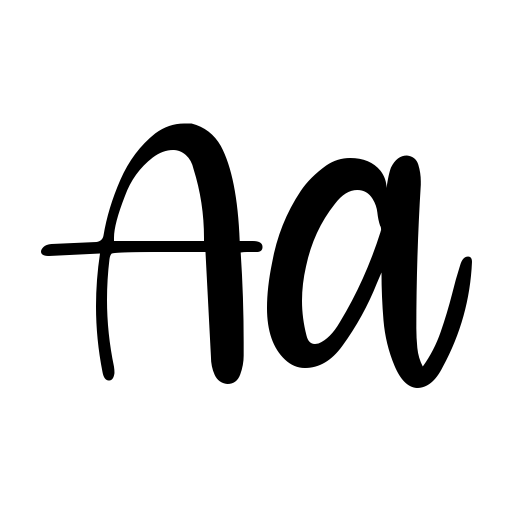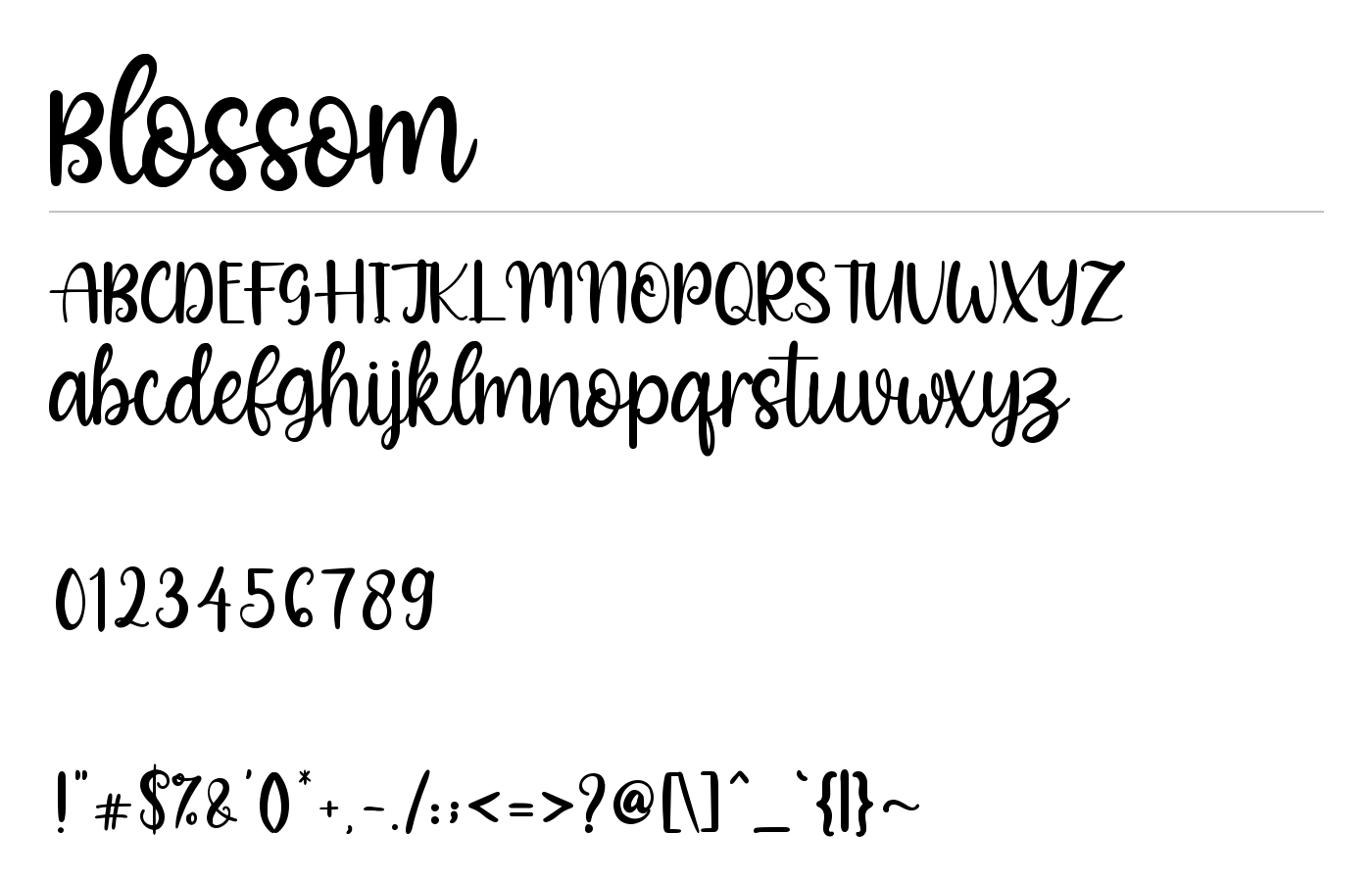
Blossom Font is a playful and whimsical script typeface with a hand-drawn feel, featuring smooth, slightly irregular strokes that give it a friendly and approachable personality. Its moderate weight and upright characters with charming loops make it ideal for creative projects, invitations, and casual branding that want to convey warmth and originality. This font works best in headlines or decorative text where a lively, informal style is desired.
Blossom Font
About Blossom Font
| Font family | Blossom Font |
| Designer | Typeface©(Kong Font).2020. |